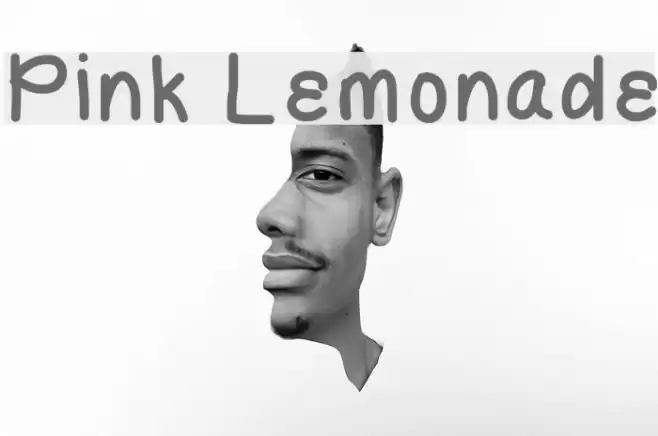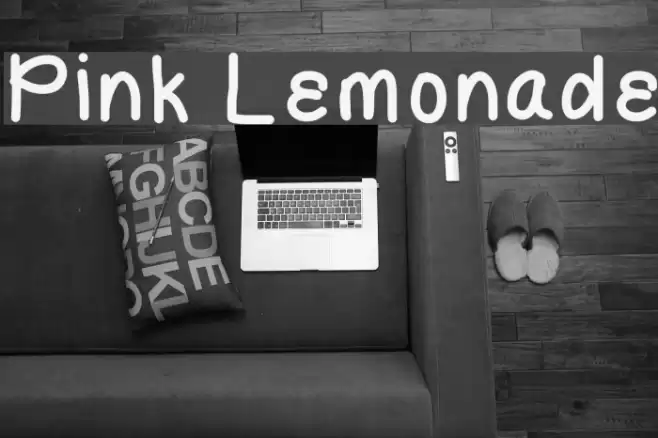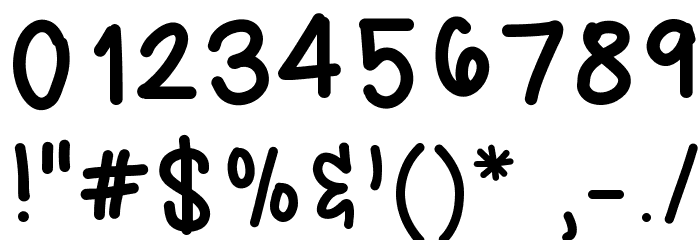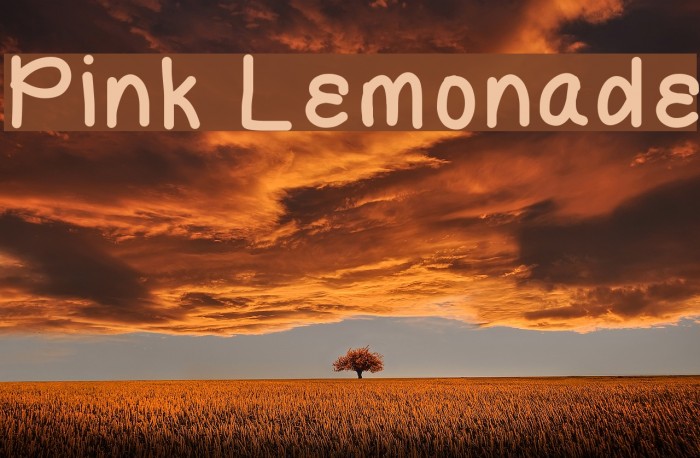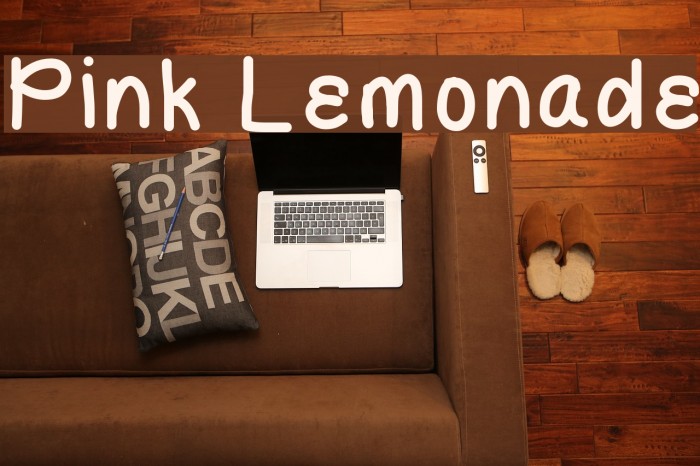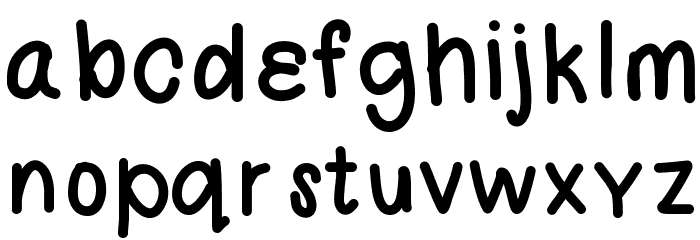
Pink Lemonade Font
Pink Lemonade Description
This font exudes a playful and whimsical charm, characterized by its rounded, hand-drawn appearance. The letters are slightly irregular, giving it a casual and friendly feel. The uppercase and lowercase letters maintain a consistent style, with a slight tilt that adds to its informal nature. The numbers and special characters follow the same playful design, making it versatile for various creative projects. Its bold strokes ensure readability while maintaining a fun and approachable aesthetic.
A playful, hand-drawn font with rounded, bold strokes and a whimsical charm from Handwritten fonts.
- Proposed Projects: Ideal for children's books, playful branding, greeting cards, and creative posters.
- Overall Style: Playful